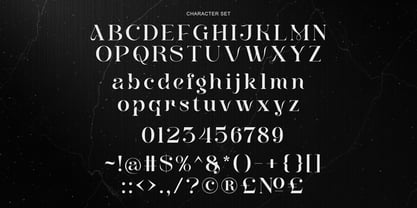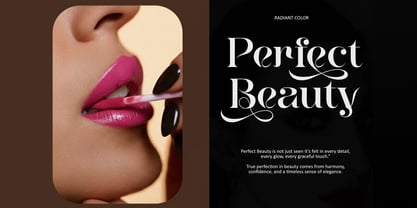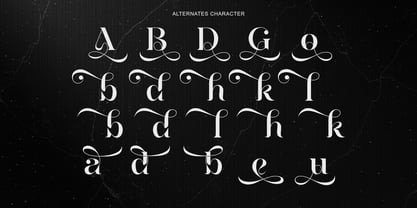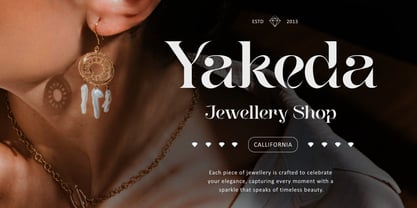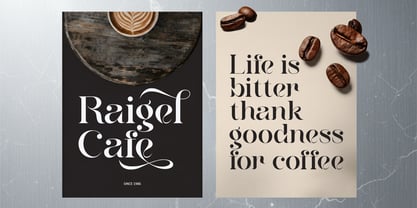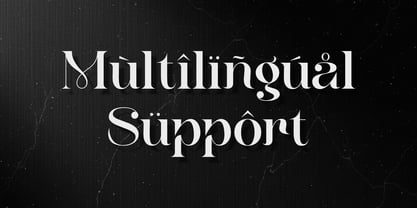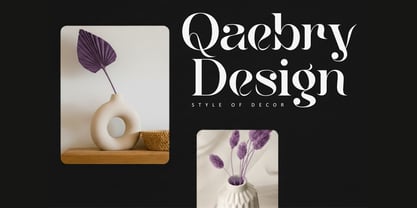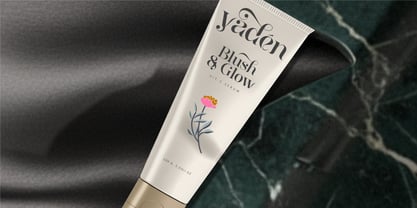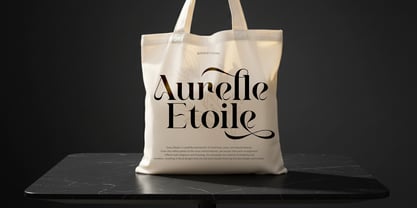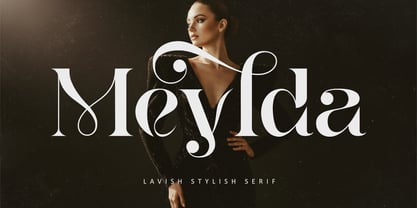
Meylda
by Sealoung
The Meylda Font Family was designed by Saiful Anwar and published by Sealoung. Meylda contains 1 styles.
Meylda – Lavish Stylish Serif Meylda is a luxurious serif typeface crafted with elegant curves and exquisite ornamental details. Designed to deliver a premium and sophisticated look, this font blends classic serif structures with graceful swashes, creating a timeless and stylish typographic expression. Every letter is shaped with artistic precision, making Meylda perfect for projects that demand elegance and high–end aesthetics. This typeface is ideal for fashion branding, boutique logos, editorial magazines, beauty products, café branding, wedding designs, and premium packaging. Its refined contrast and decorative strokes bring a captivating presence to any design. FEATURES Elegant & Stylish Serif Beautiful Alternates and Decorative Swashes High–contrast strokes with refined detailing Complete uppercase & lowercase characters Numbers & punctuation Multilingual support Perfect for luxury branding, editorial design, packaging, beauty, café, and wedding projects PERFECT FOR Luxury Branding Fashion & Beauty Editorial Magazine Café & Restaurant Logo Product Packaging Wedding Invitations Elegant Social Media Typography Available Now – Experience Meylda Refined Elegance.